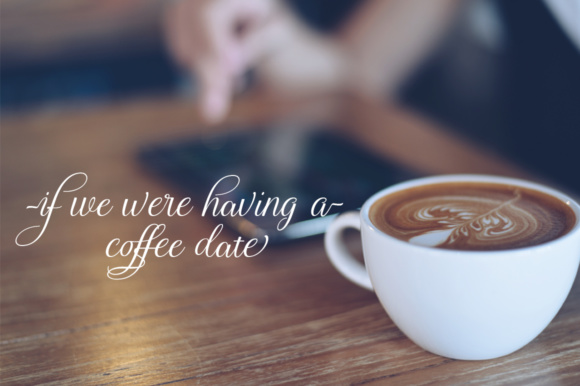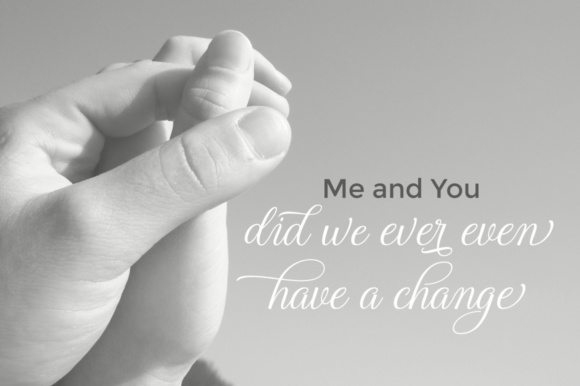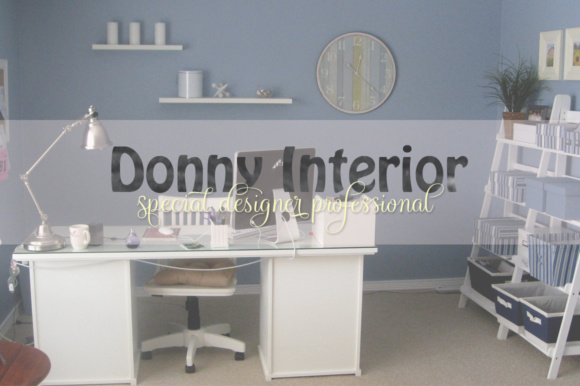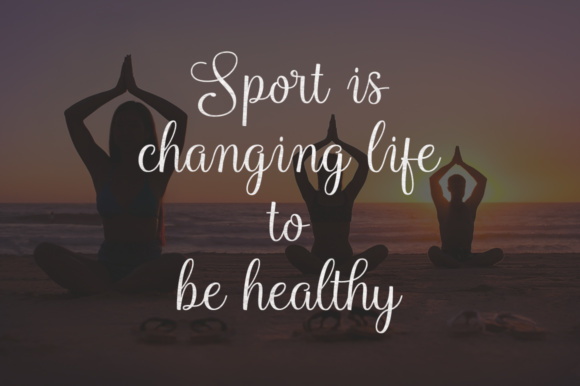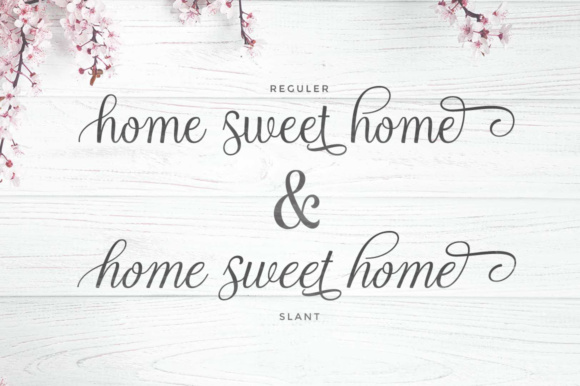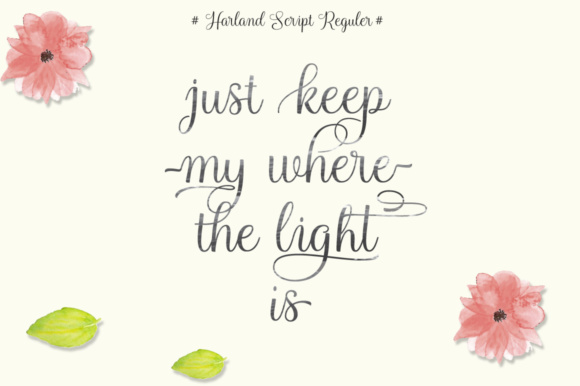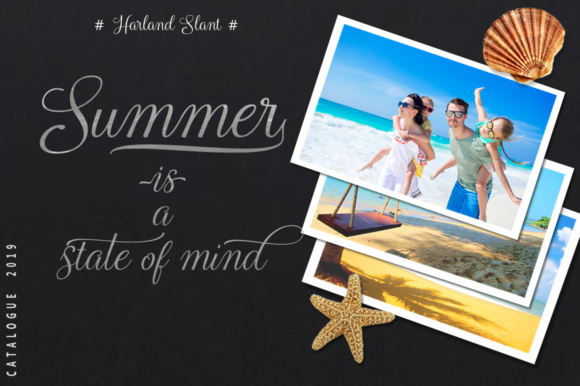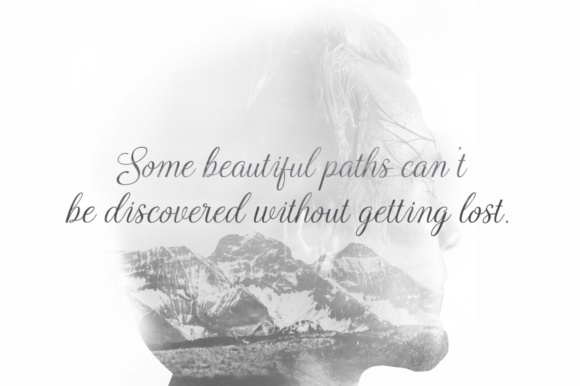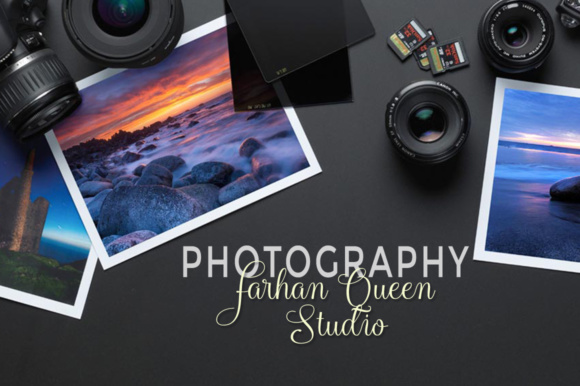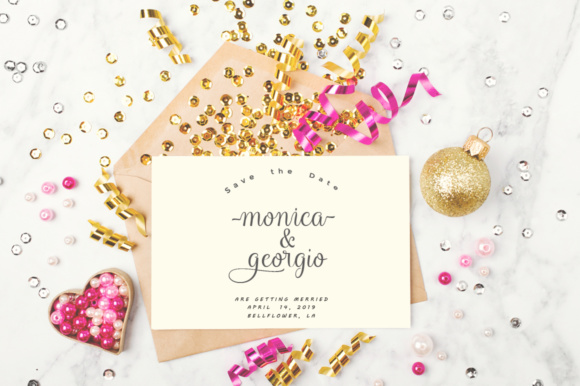
Harland Script Font
About Harland Script Font
The Harland Script is a fresh, modern script with a stunning calligraphy style, featuring decorative characters on a flowing baseline.
It’s the perfect font for creating invitations, greeting cards, branding and much more.